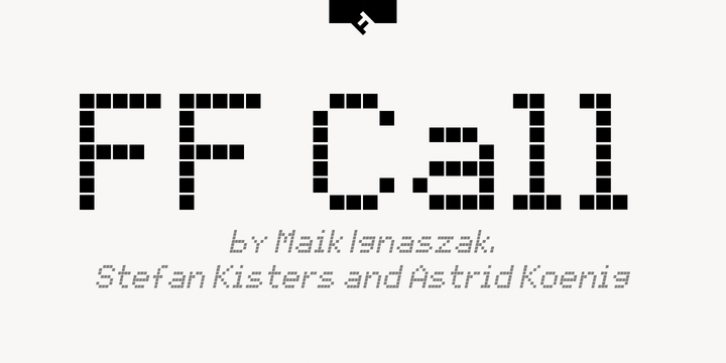
Publisher: FontFont
German type designers Maik Ignaszak, Stefan Kisters, and Astrid Koenig created this display FontFont in 2000.
The family has 36 weights, (including italics) and is ideally suited for poster and billboards, small text as well as software and gaming.
FF Call provides advanced typographical support with features such as ligatures.
It comes with proportional lining figures.